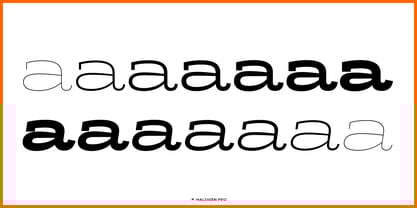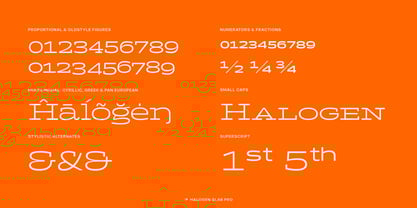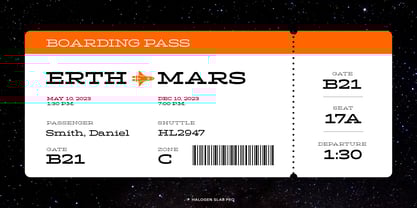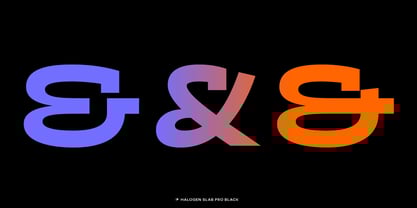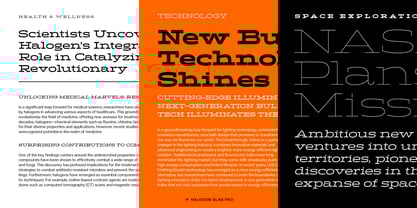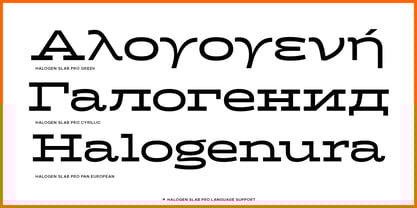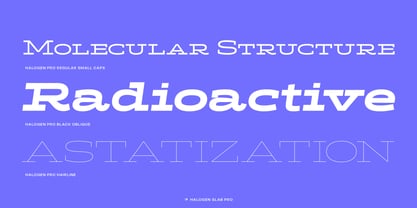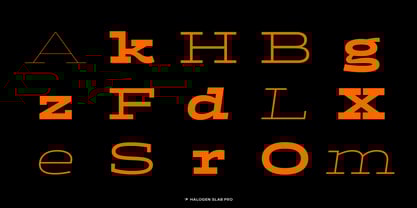
Halogen Slab Pro
by Positype
The Halogen Slab Pro Font Family was designed by Neil Summerour and published by Positype. Halogen Slab Pro contains 14 styles and family package options. More about this family
Remastered for 2024. The original Halogen, which debuted in 2011, marked a significant departure from conventional extended sans-serif typefaces. It eschewed mere utilitarianism in favor of exuding style and swagger, while still offering a comprehensive character set boasting a generous x-height in lowercase letters and small caps. Upon its release, Halogen garnered acclaim, prompting numerous requests for enhancements and modifications. Responding to this demand, Flare and Slab variants were introduced to the Halogen family.
Now, with the unveiling of Halogen Pro, this iconic typeface transcends its predecessors. Not only does it expand upon the existing character set, but it also broadens script support with the inclusion of Cyrillic and Greek alphabets. Additionally, Halogen Pro introduces a brand-new variant: Halogen Soft. This fresh addition to the collection maintains the distinctive features of its predecessors while offering a softer, more refined aesthetic.
Each typeface in the Halogen Pro collection boasts an array of features, including lowercase and small caps, multiple alternate sets, and an extensive selection of numerals. Furthermore, meticulous attention to detail ensures a seamless blend of functionality and visual appeal, making Halogen Pro the quintessential choice for designers seeking versatility and sophistication in their typographic endeavors.
Designers: Neil Summerour
Foundry: Positype